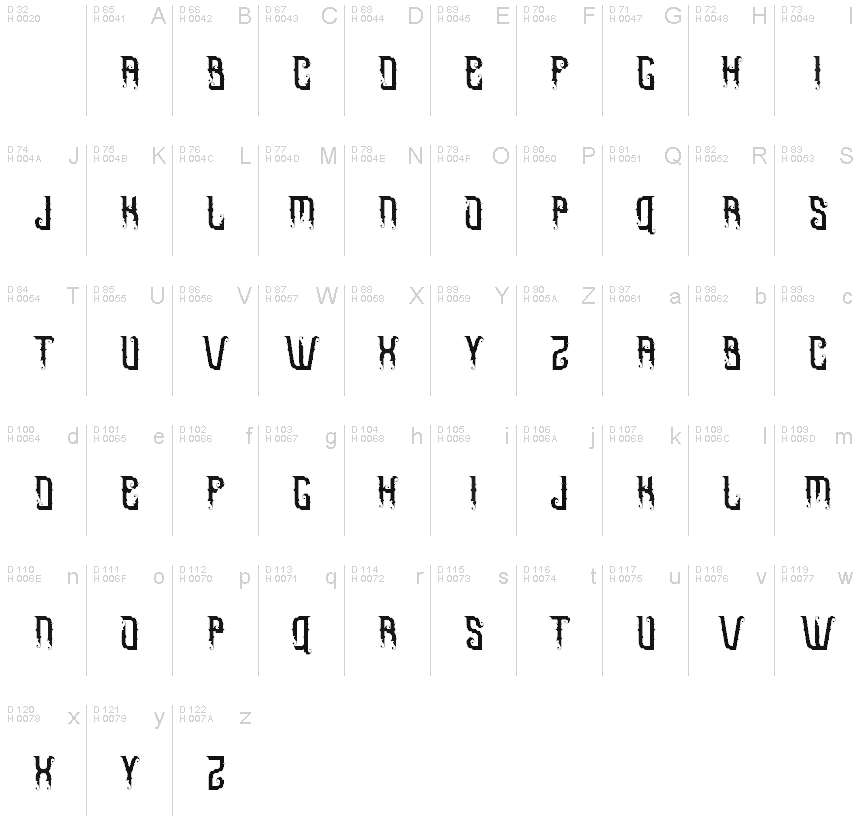
Omnivorous Free Bold
Omnivorous Bold is a striking retro-inspired font that commands attention. With its bold, condensed letterforms and distinctive flourishes, this display typeface exudes a vintage flair reminiscent of bygone eras.
The jagged, uneven edges and organic textures lend a sense of grit and character, making Omnivorous Bold a versatile choice for a range of design applications, from eye-catching headlines to impactful branding. Its condensed width allows for powerful typographic compositions, while the retro aesthetic evokes a sense of nostalgia and timelessness.
Omnivorous Bold is a captivating font that effortlessly bridges the past and present, offering designers a unique typographic tool to bring their creative visions to life.